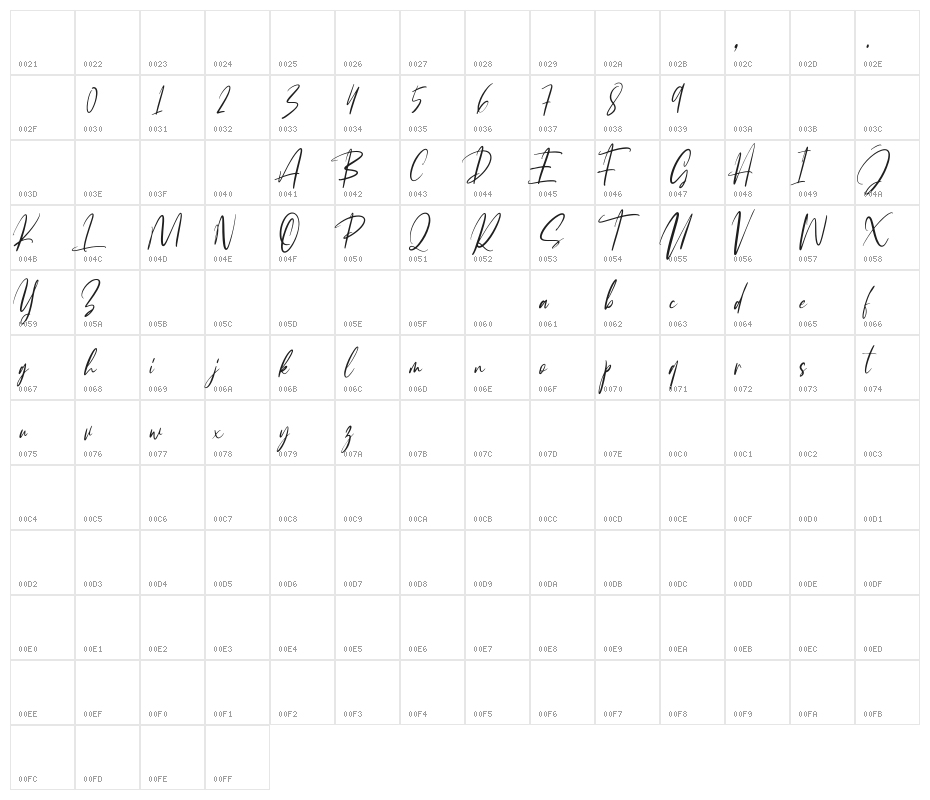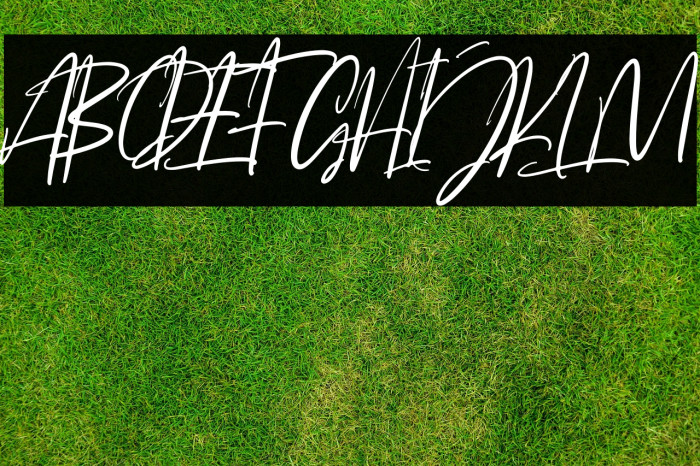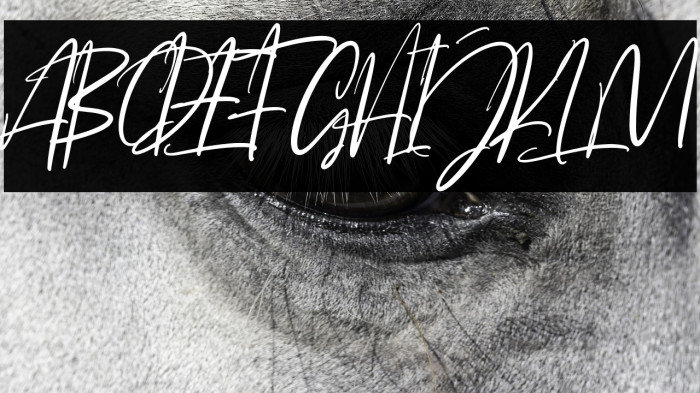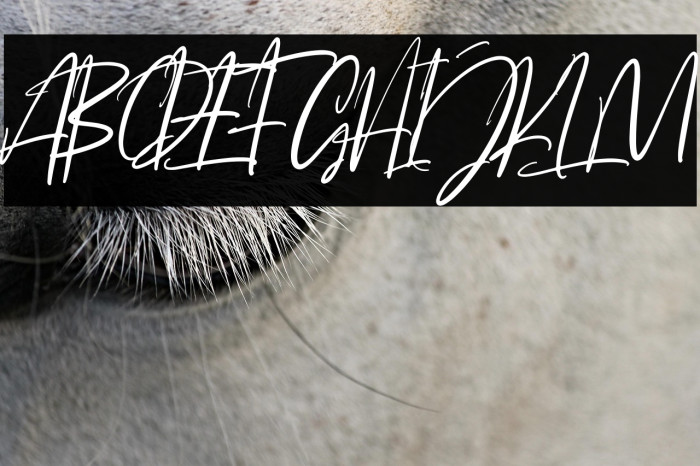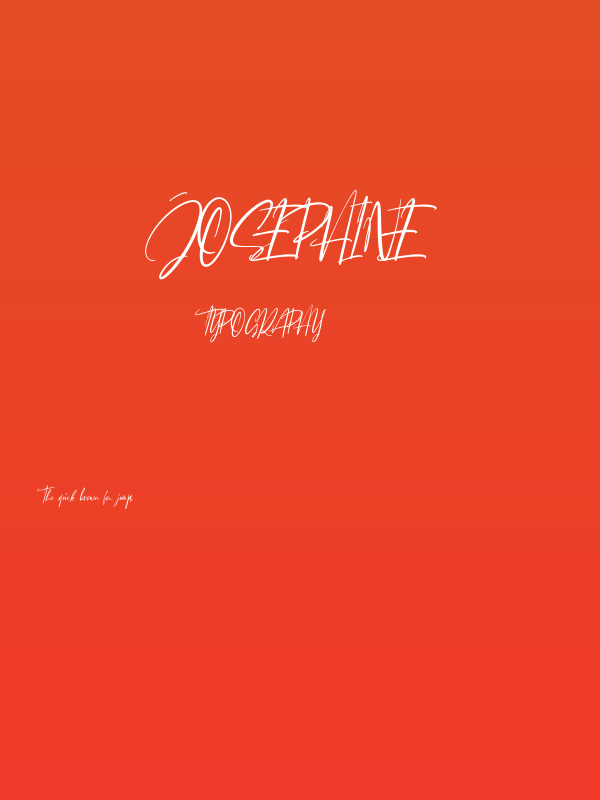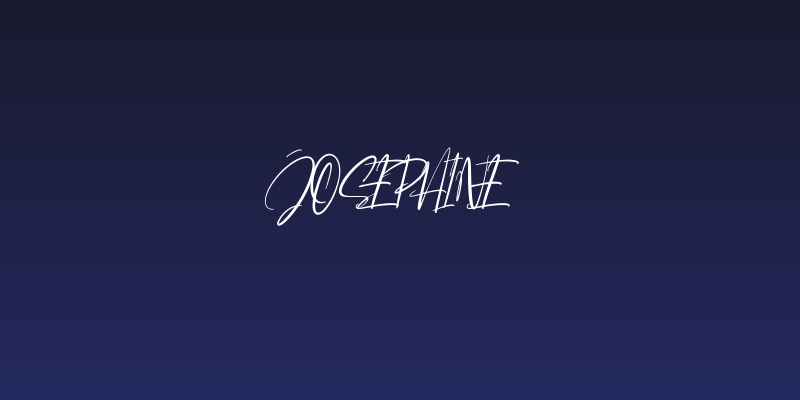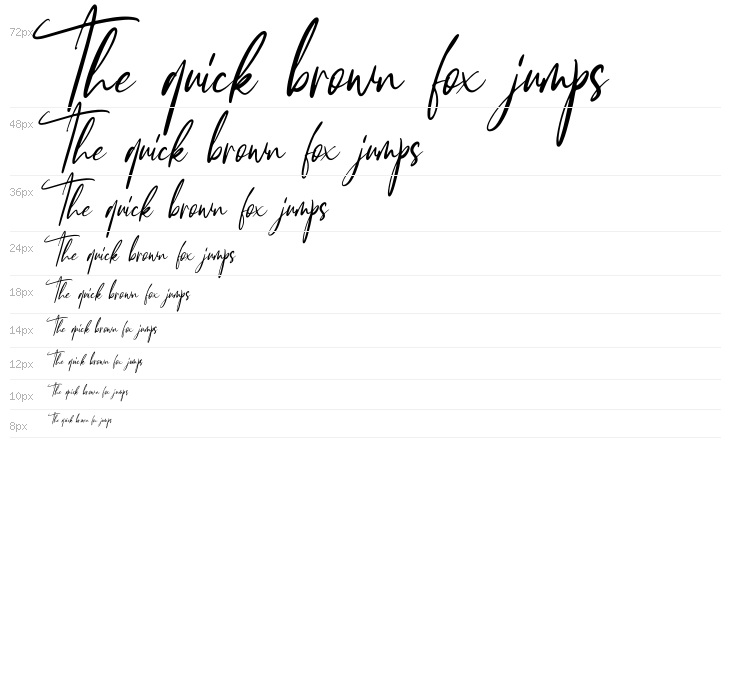
Josephine Font
Josephine Description
This font exudes a dynamic and expressive style, characterized by its fluid, handwritten appearance. The letters are crafted with a sense of motion and spontaneity, featuring elongated strokes and varying line thickness that add a personal touch. The uppercase letters are bold and sweeping, while the lowercase letters maintain a more consistent flow, offering a harmonious balance. Numbers and special characters follow the same lively style, ensuring a cohesive look across all text elements. This font is perfect for projects that require a personal, artistic flair.
| Proposed Projects | Ideal for wedding invitations, personal branding, artistic posters, and creative social media graphics. |